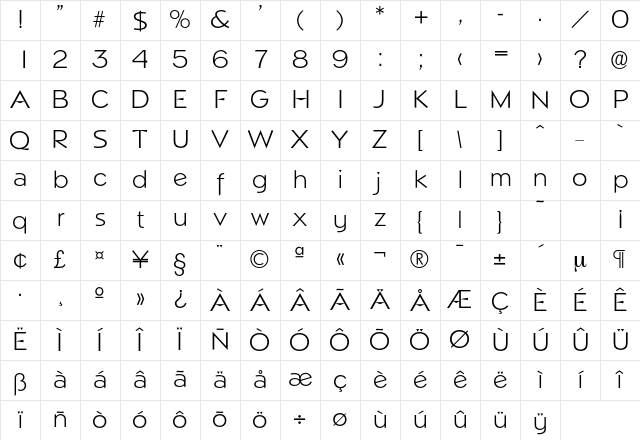
Napoli-Light Regular
Napoli-Light Regular Font Preview
Napoli-Light Regular Uppercase Preview
Napoli-Light Regular Lowercase Preview
Napoli-Light Regular Numeric Preview
Napoli-Light Regular Character Map
Complete Napoli-Light Regular glyph index. Displaying only characters natively supported by Napoli-Light Regular font.
Napoli-Light Regular Character Map
Design Context for Napoli-Light
Napoli-Light is a composed and adaptable typeface that performs quietly and consistently across a wide range of design contexts. Its slender proportions lend an understated elegance to any composition.